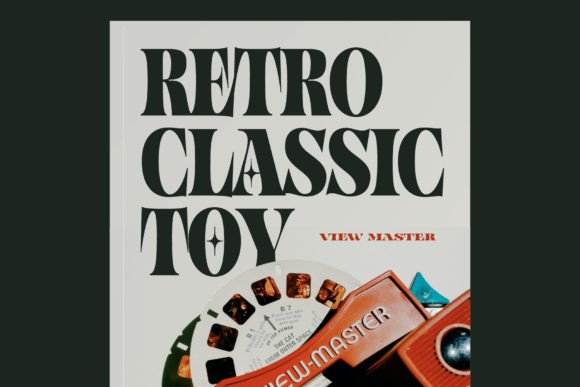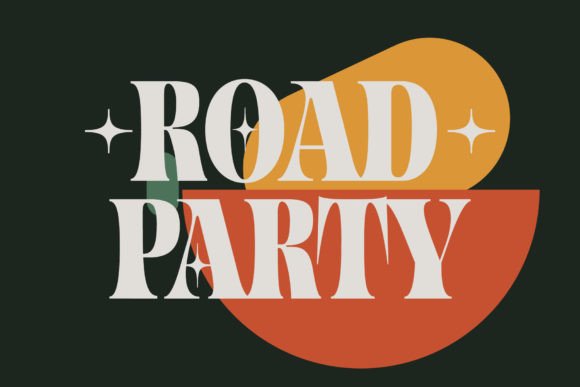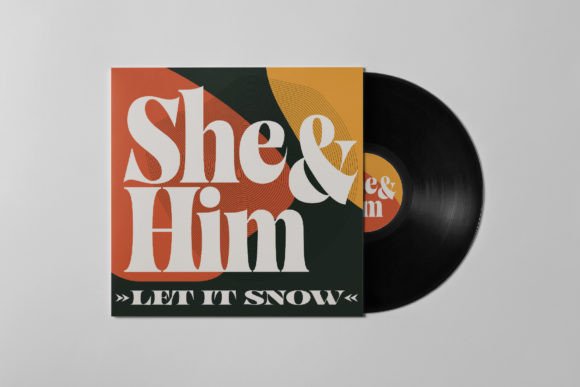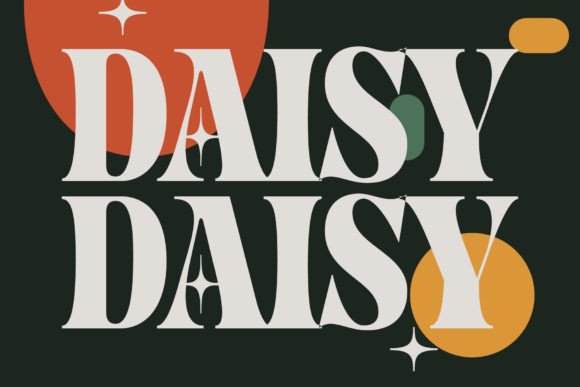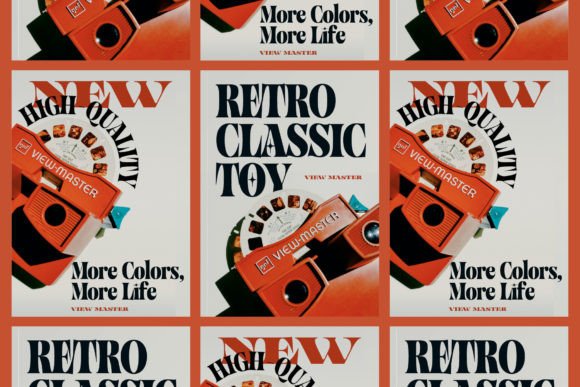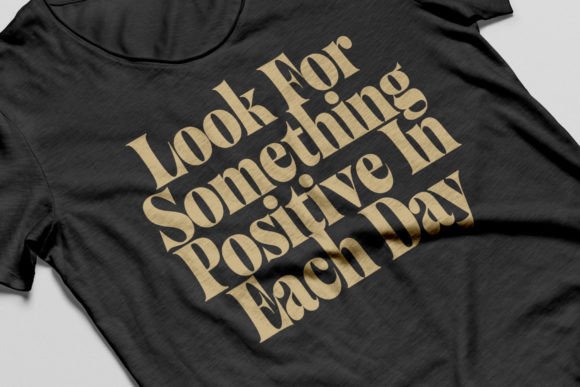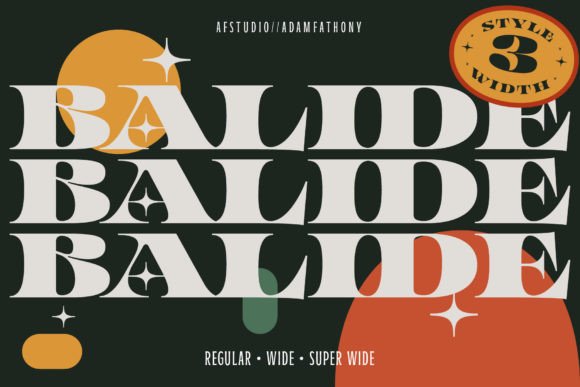
Introducing Balide Font: Elevate Your Designs with a Cool, Retro-Style Serif Display Font
In the world of typography, fonts play a crucial role in conveying messages, evoking emotions, and setting the tone for creative projects. For designers and crafters looking to add a touch of nostalgia and sophistication to their work, the Balide Font is an excellent choice. This cool, retro-style serif display font is meticulously crafted with high attention to detail, making it a valuable asset to any font library.
What Makes Balide Font Stand Out?
Balide Font is not just another addition to the vast collection of fonts available online. Its unique blend of retro charm and modern elegance sets it apart from the rest. Here are some key features that make Balide a standout:
- Retro-Style Serif Display Font: Balide boasts a classic serif design with a retro twist, making it perfect for projects that require a vintage or nostalgic feel.
- Neatly Crafted and Highly Detailed: The font is designed with precision and attention to detail, ensuring that it looks great in various sizes and applications.
- Versatility: Whether you’re working on a logo, a poster, a website, or any other creative project, Balide can enhance your design with its unique character.
Enhance Your Creations with Balide Font
The versatility of Balide Font makes it suitable for a wide range of projects. Here are some ways you can use Balide to elevate your designs:
- Logos and Branding: Create a memorable brand identity with Balide’s distinctive retro charm.
- Posters and Flyers: Add a touch of nostalgia and sophistication to your promotional materials.
- Web Design: Use Balide as a display font to create visually appealing headings and titles for your website.
- Social Media Graphics: Stand out on social media with eye-catching graphics featuring Balide Font.
- Packaging Design: Give your product packaging a unique and stylish look with Balide.
Why Choose Balide Font?
With so many fonts available, why should you choose Balide for your projects? Here are some compelling reasons:
- Unique Style: Balide offers a unique retro-style serif design that can help your projects stand out.
- High Quality: The font is meticulously crafted, ensuring high-quality output in various applications.
- Easy to Read: Despite its decorative nature, Balide remains highly legible, making it suitable for a wide range of uses.
How to Use Balide Font Effectively
To get the most out of Balide Font, consider the following tips:
- Pair it with Other Fonts: Combine Balide with sans-serif fonts for a contrasting look or with other serif fonts for a layered effect.
- Experiment with Sizes: Use Balide in various sizes to create visual hierarchy and emphasis in your designs.
- Play with Colors: While Balide looks great in black and white, experimenting with colors can add an extra dimension to your designs.
| Font Name | Balide Font |
| Author | Adam Fathony |
Balide Font is a versatile and stylish addition to any designer’s or crafter’s toolkit. Its unique retro-style serif design, combined with its high level of detail and versatility, makes it an excellent choice for a wide range of creative projects. Whether you’re looking to add a touch of nostalgia, create a memorable brand identity, or simply enhance your designs with a cool and elegant font, Balide is sure to meet your needs.